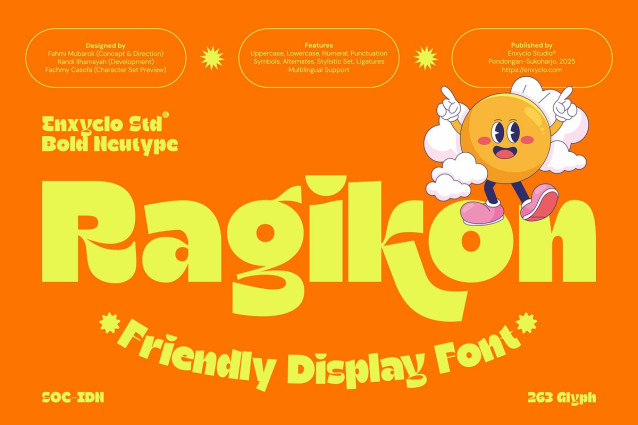
Ragikon Demo Font is a friendly, bold display font that radiates the vibrant spirit of summer. Its playful and chunky letterforms bring a warm, approachable vibe, making it perfect for eye-catching designs that need to stand out. Whether you’re creating fun branding, lively posters, or quirky packaging, Ragikon offers the perfect blend of personality and readability with a modern twist. Crafted to be a versatile typeface, Ragikon shines in bold headlines and display use, infusing any project with energy and friendliness. Its distinctive style captures the sunny essence of summer, making it ideal for brands and creatives who want to communicate warmth, joy, and bold creativity through their font choice.